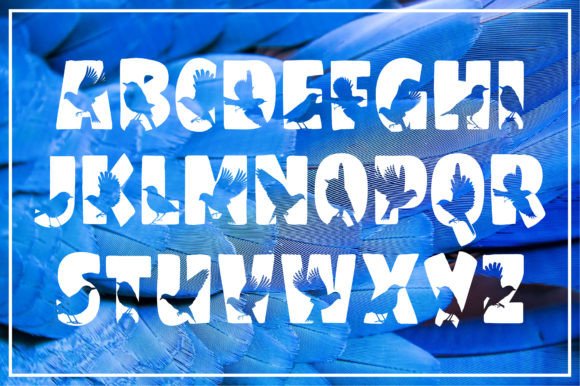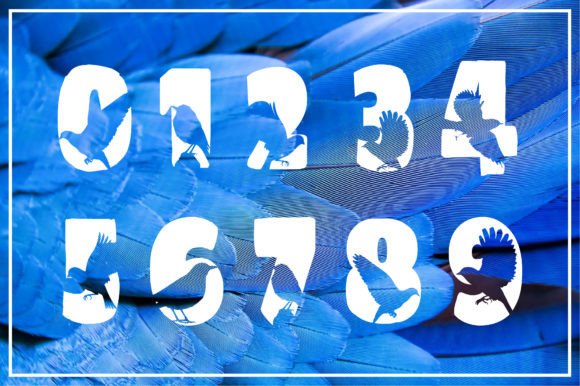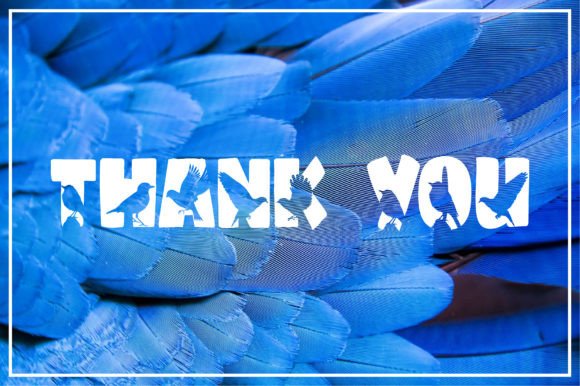
The Joy of Bird Font: A Designer’s New Best Friend
I still remember the design project that led me to discover Bird Font. I was working on a children’s book cover, and my client wanted a playful, yet elegant look. I spent hours scouring font libraries, but nothing seemed quite right. That’s when I stumbled upon Bird Font, and it was love at first sight! ✨
An Honest Review of Bird Font
- Unique and original design that’s sure to turn heads ✅
- Perfect for cartoon-related designs, children’s games, and quotes 📚
- Works beautifully for titles, brand names, book covers, and posters 📢
- Adds a touch of joy and playfulness to any design 😊
While Bird Font is an amazing addition to any design project, there are a few things to keep in mind 🤔:
- May not be suitable for very formal or professional designs ⚠️
- Some characters may not work well at very small font sizes 📉
A Practical Guide to Using Bird Font
- Experiment with OpenType features, such as ligatures and stylistic alternates, to add more personality to your design 📝
The Story Behind Bird Font
According to the font’s creators, Bird Font was inspired by the joy of childhood and the beauty of nature 🌟. The designers wanted to create a font that would bring a smile to people’s faces and add a touch of whimsy to any design. And I think they succeeded! 😊
| Font Name | Bird Font |
| Author | AvocadoSVG |
Q: Is Bird Font suitable for body text?
A: While Bird Font is a beautiful font, it’s best suited for titles, headings, and short paragraphs. For body text, you may want to choose a clearer, more readable font.